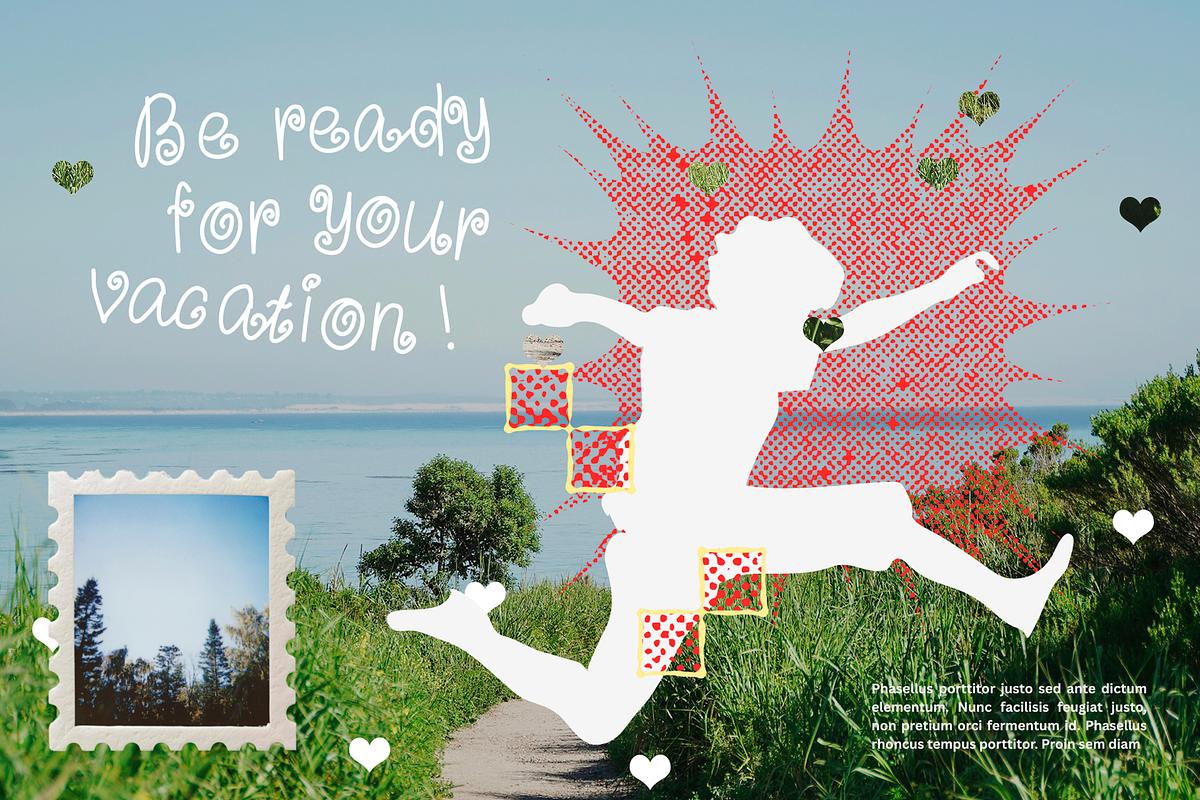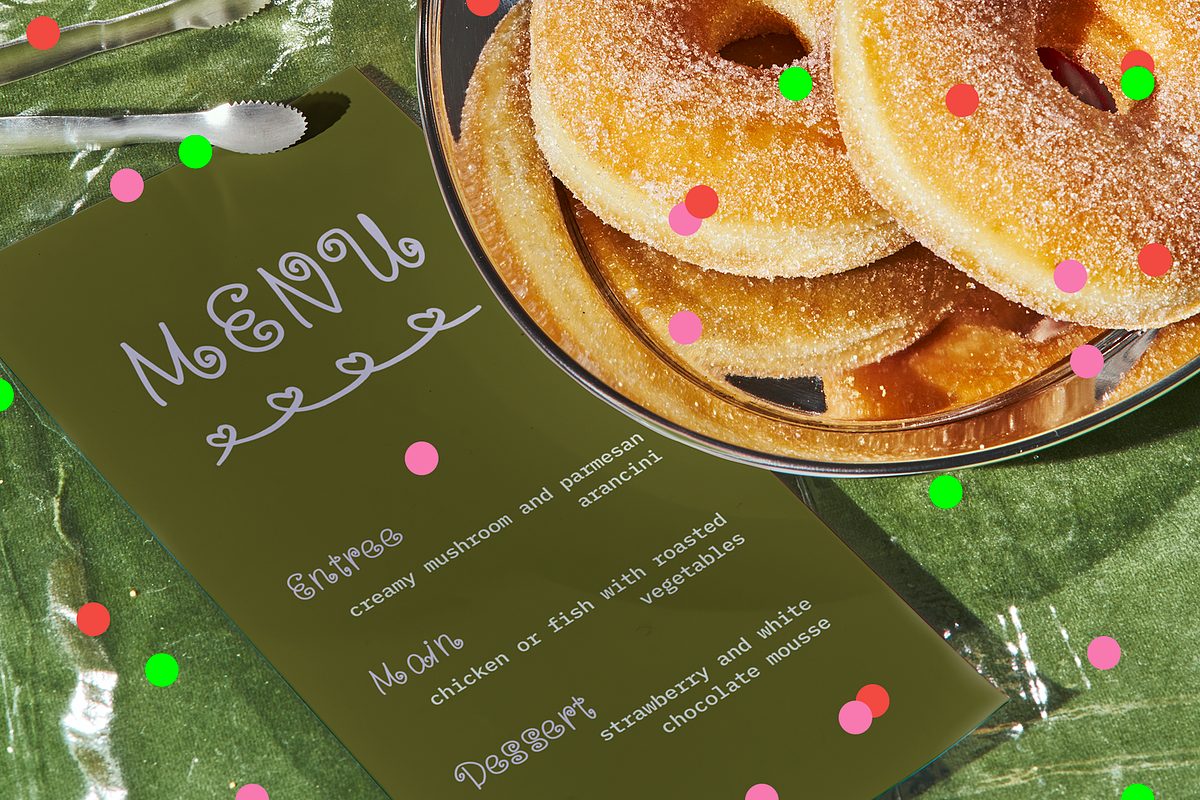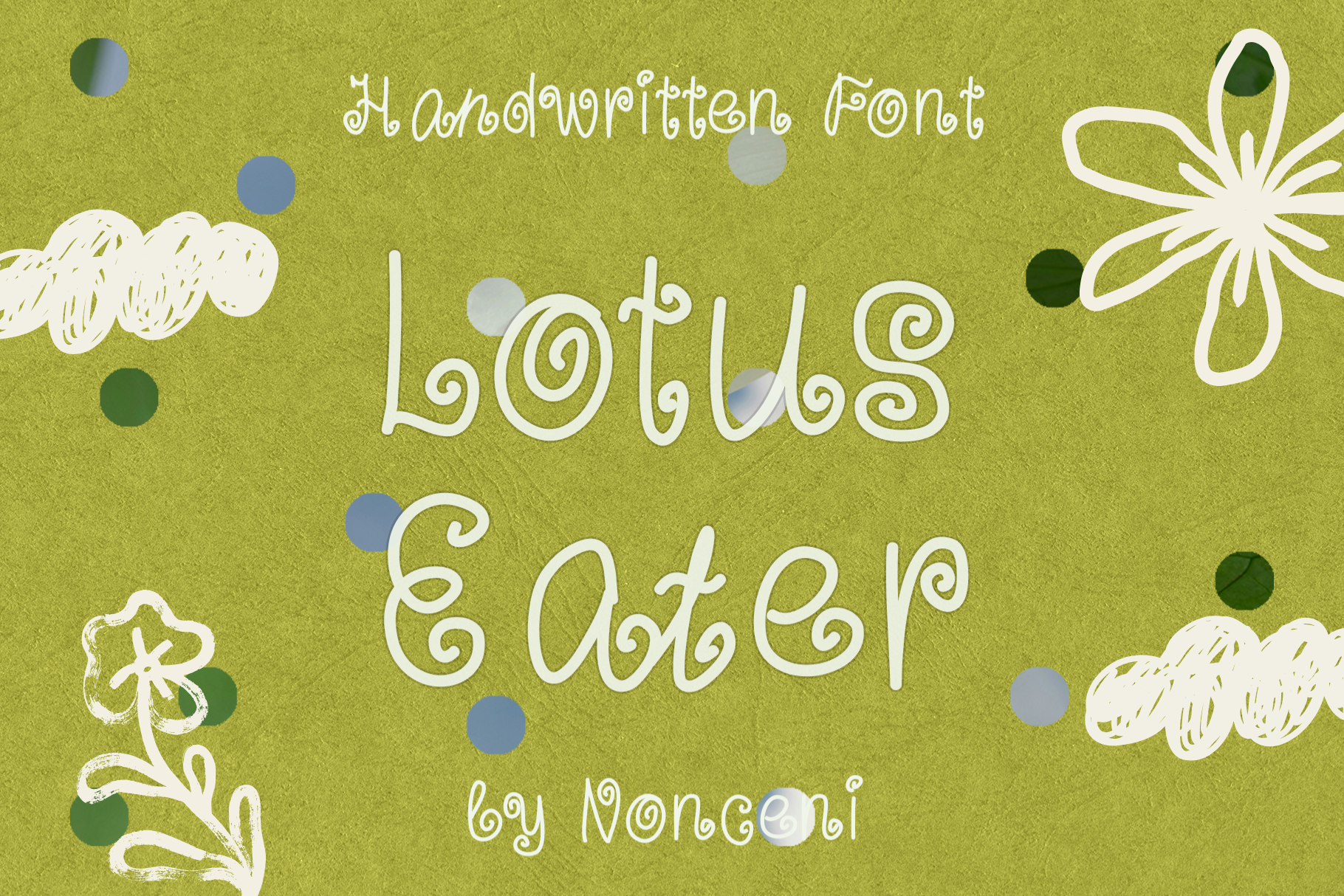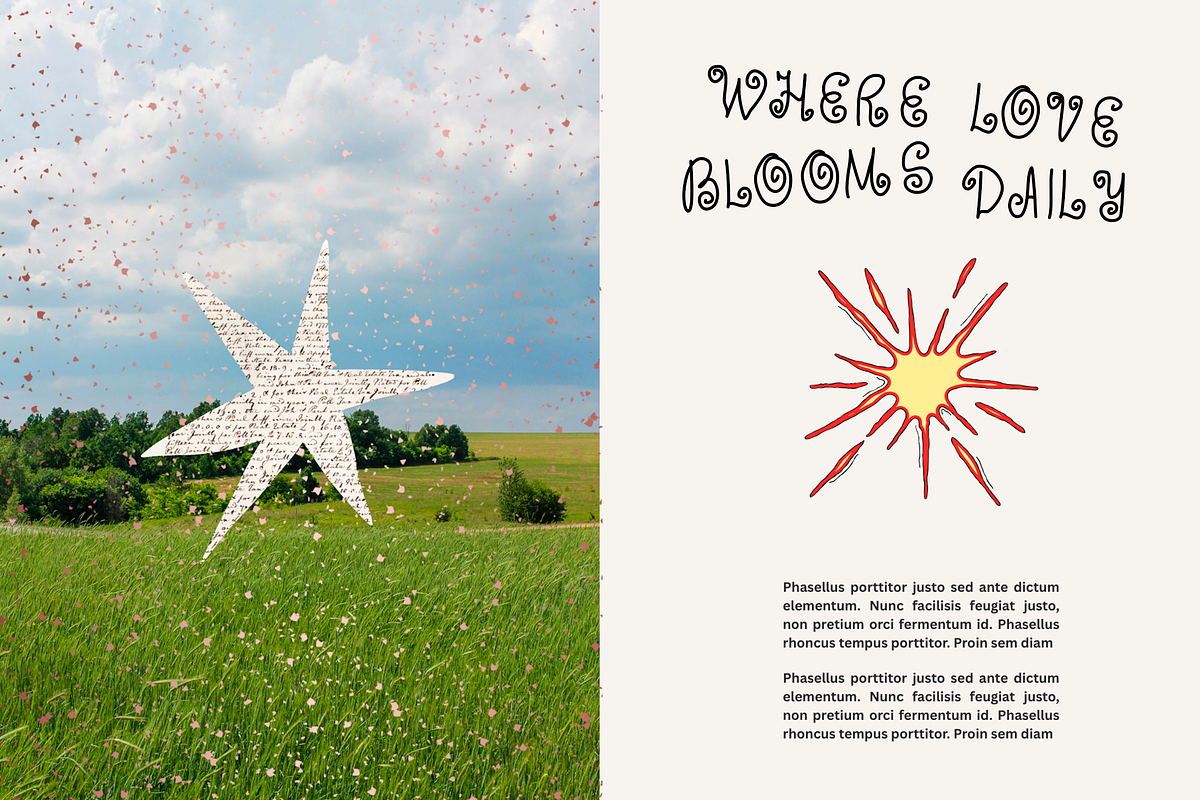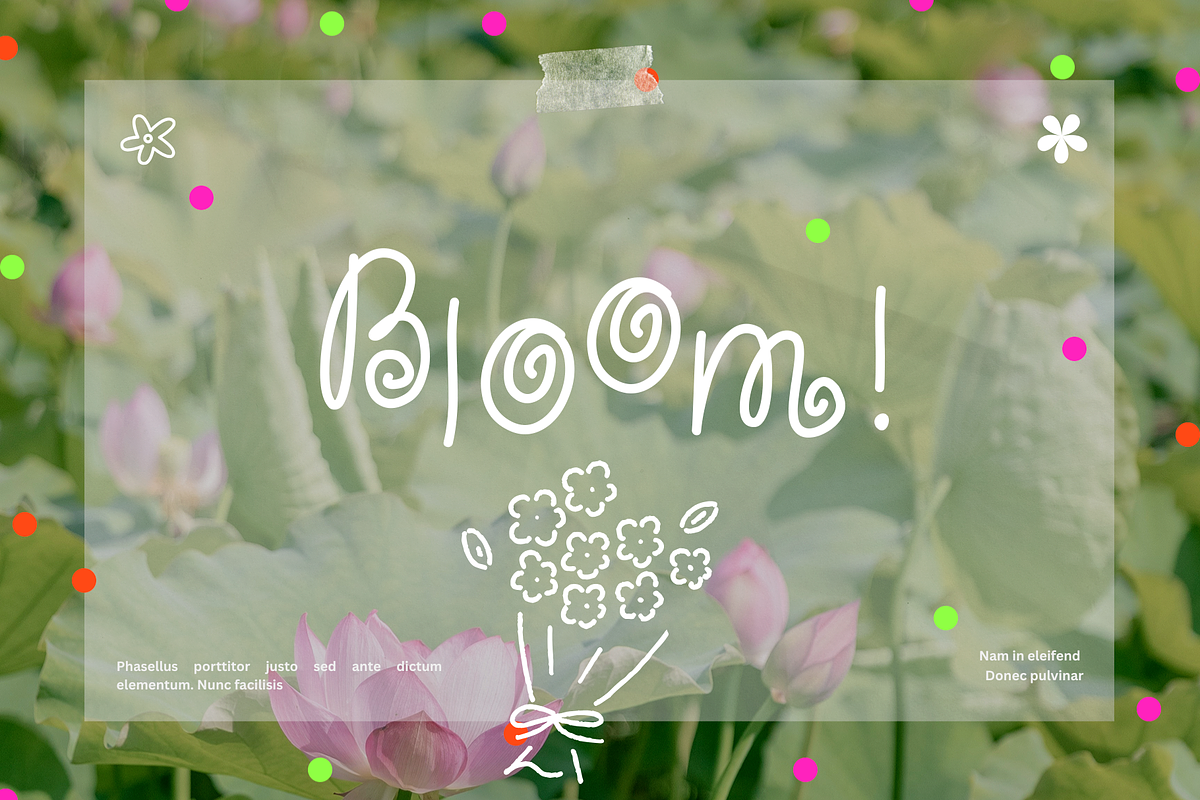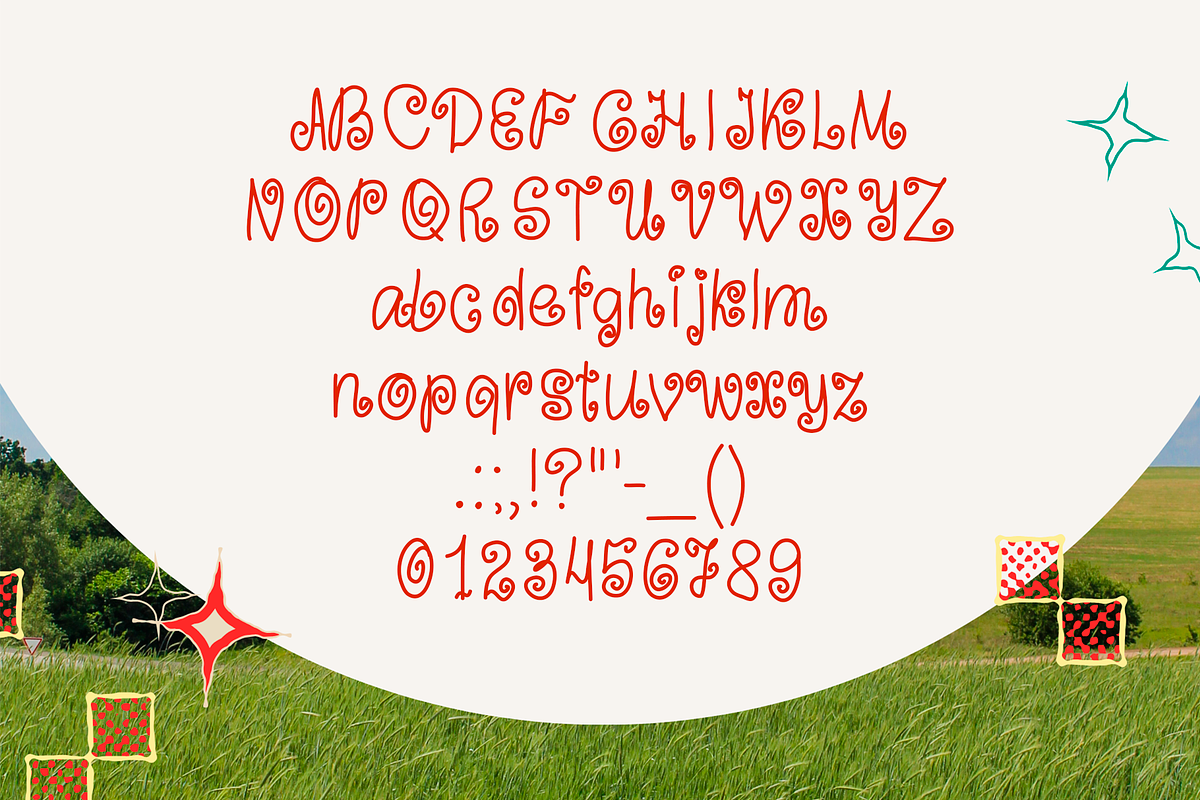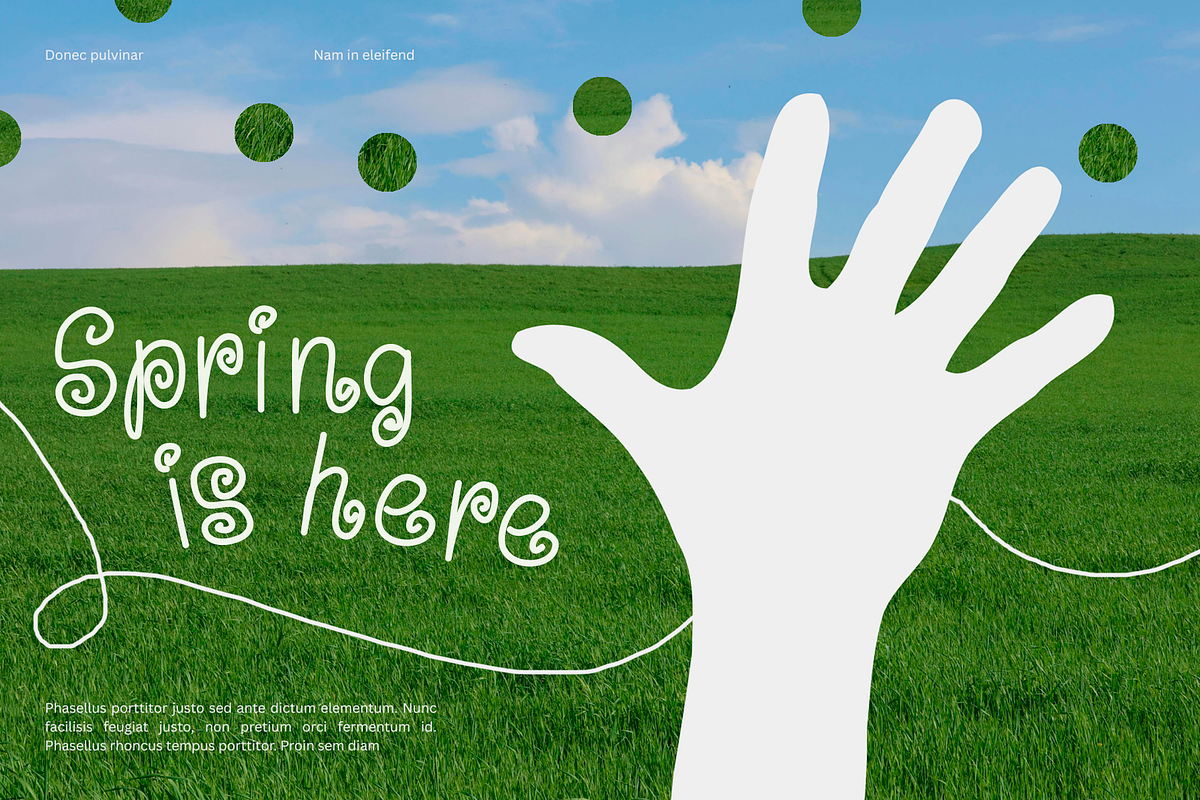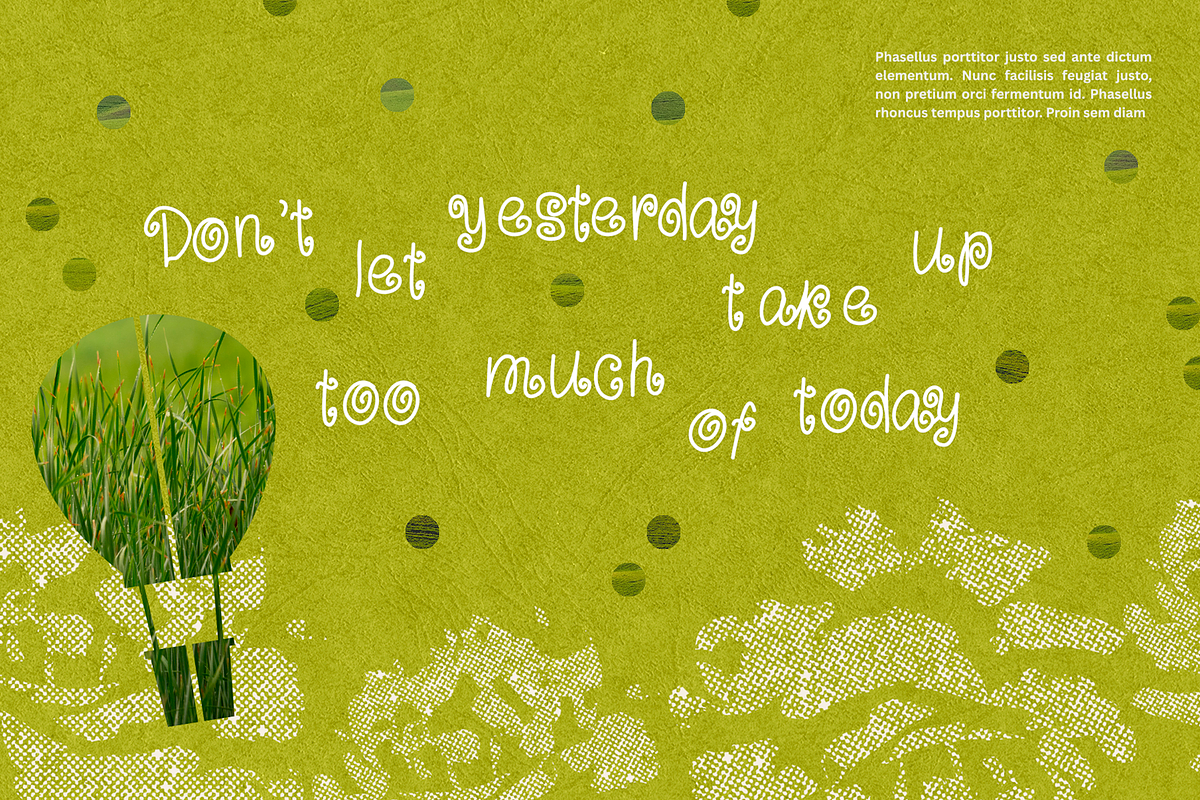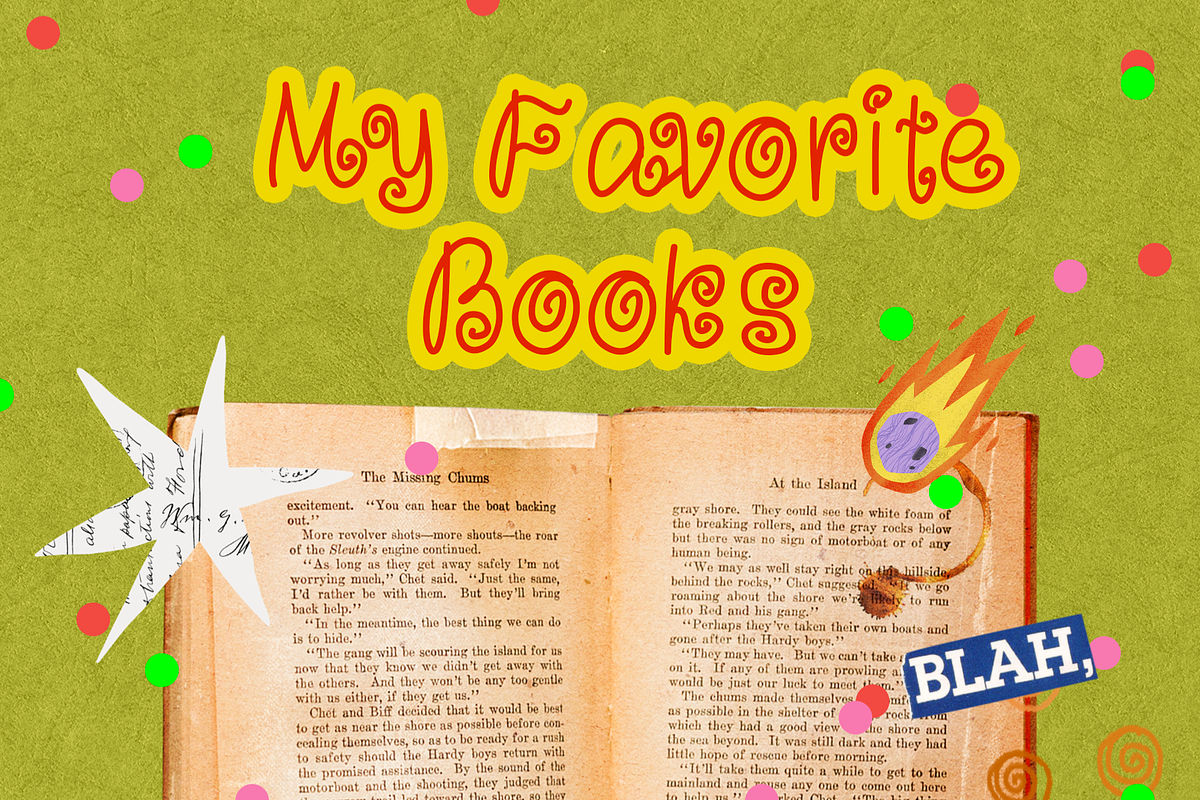
Lotus Eater Whimsical Font
Lotus Eater is a charming handwritten display font designed for dreamers. With its unique, bubbly letterforms and organic feel, it captures the essence of a whimsical font.
Whether you are designing a high-energy TikTok cover, a cozy indie brand identity, or a stylish digital journal, Lotus Eater adds an instant touch of "handmade" warmth to every pixel. It’s playful, slightly quirky, and full of personality—perfect for projects that need to stand out with a human touch.
Complete Alphabet: Full sets of uppercase and lowercase letters.
Numbers & Symbols: Essential punctuation and numerals for functional design.
High Readability: Optimised for both digital screens and high-quality print.
Multi-Genre Appeal: Perfectly suited for social media graphics, invitation cards, packaging, apparel design, and web headers.